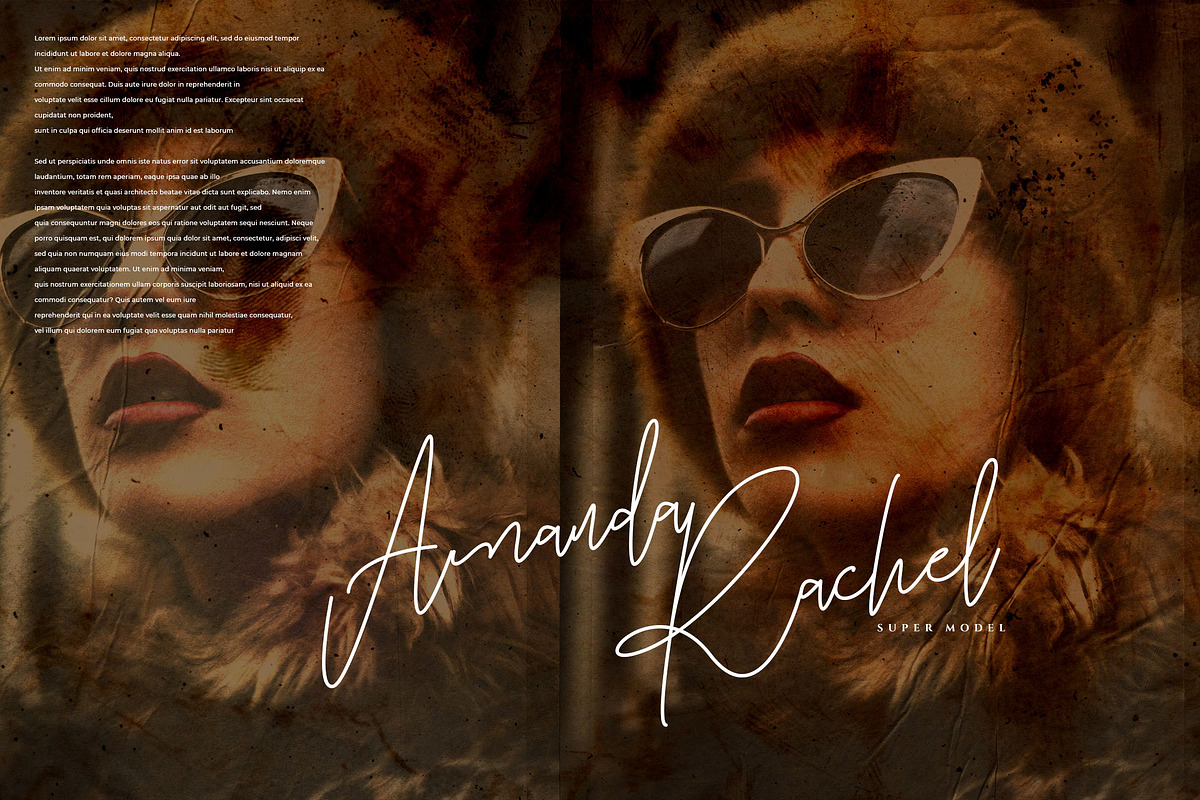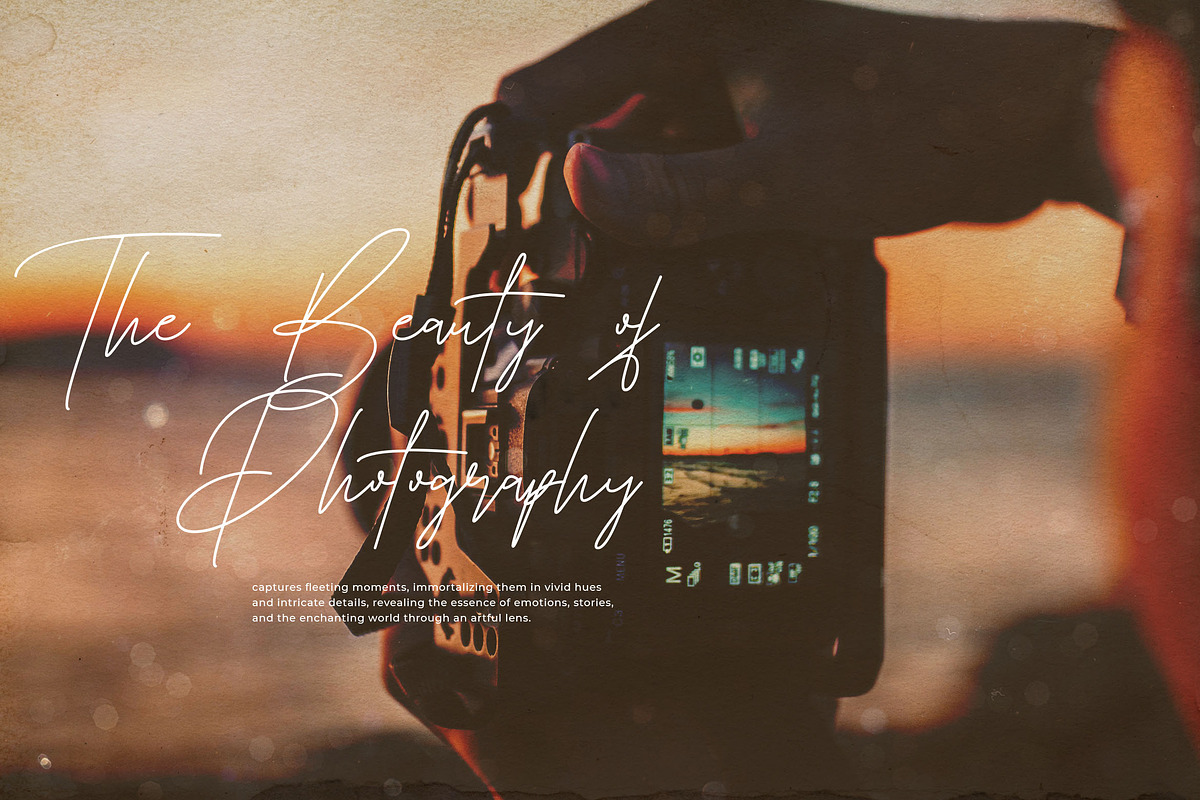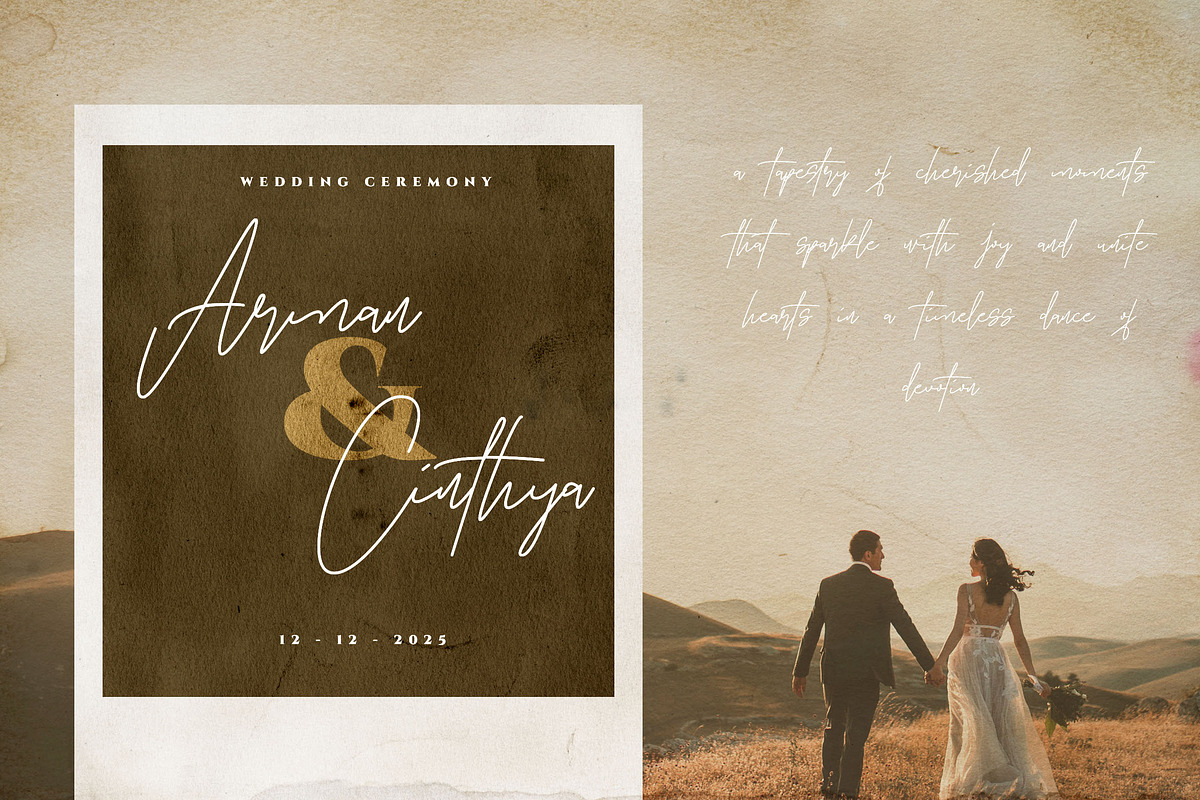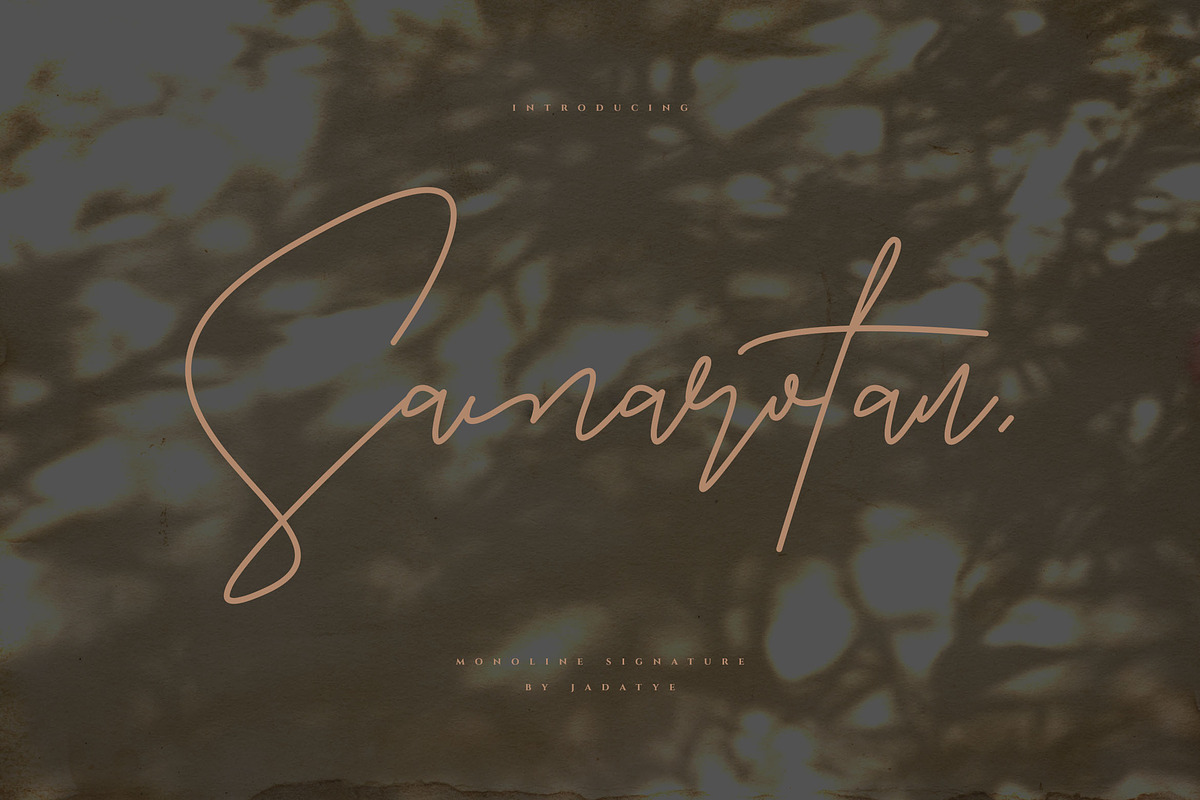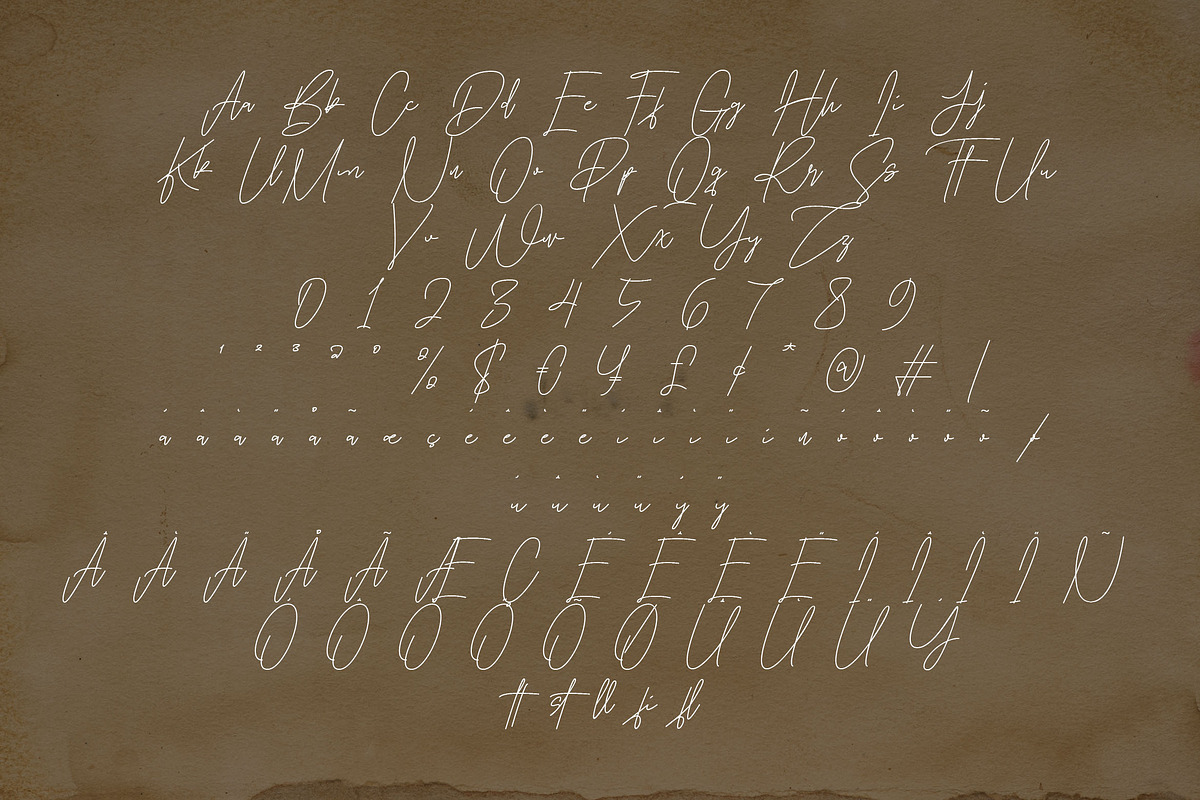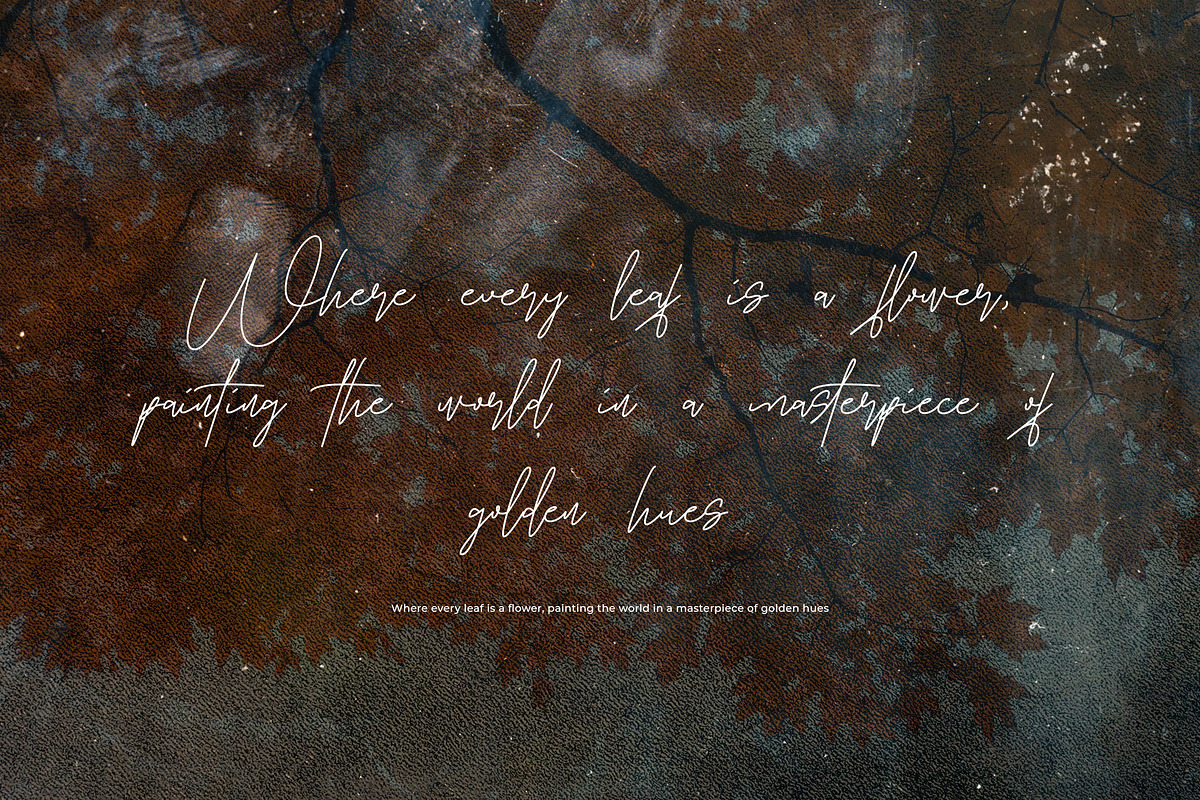
Samarotan | Monoline Signature
Samarotan is a script font that comes with a monoline style. suitable for product, branding, social media, and so on. contains standard English letters, numbers, punctuation, and several accents that support multilingualism.